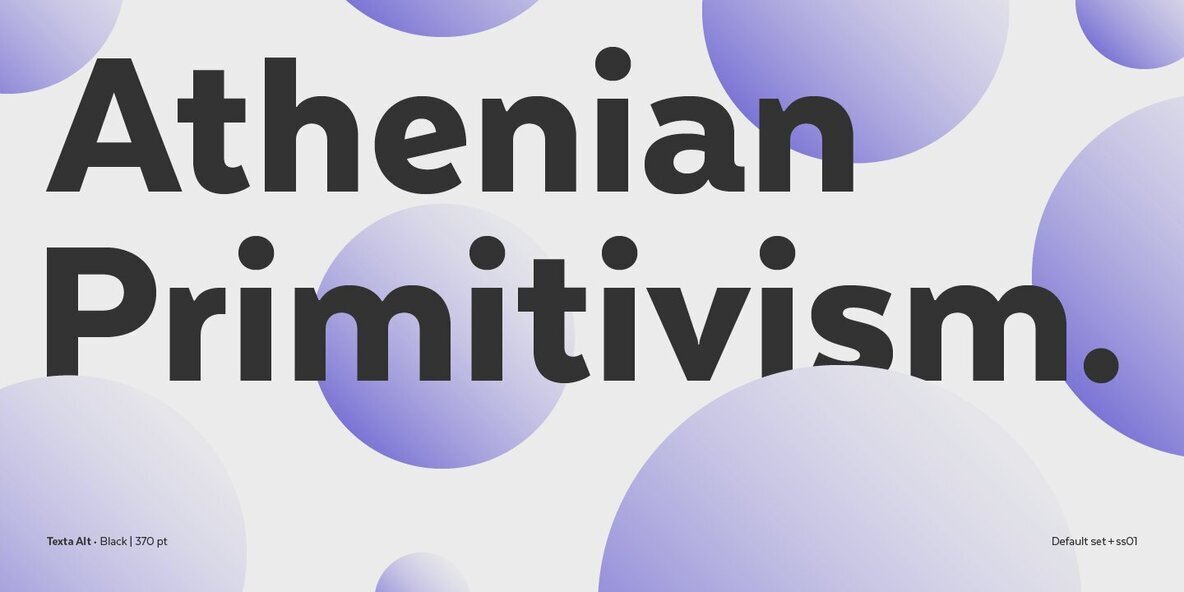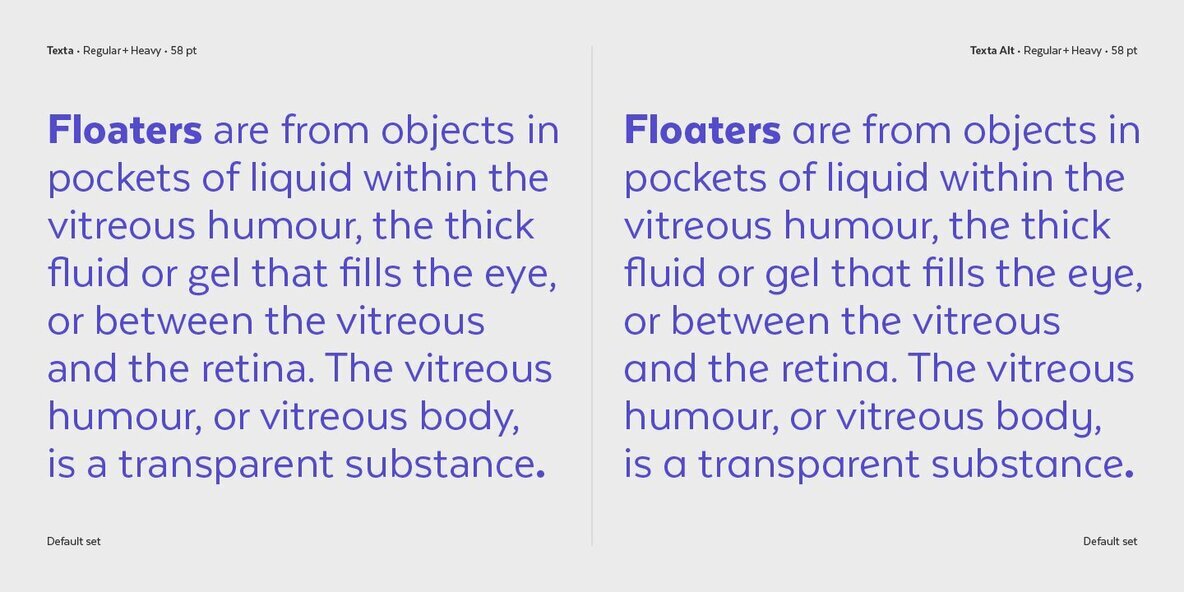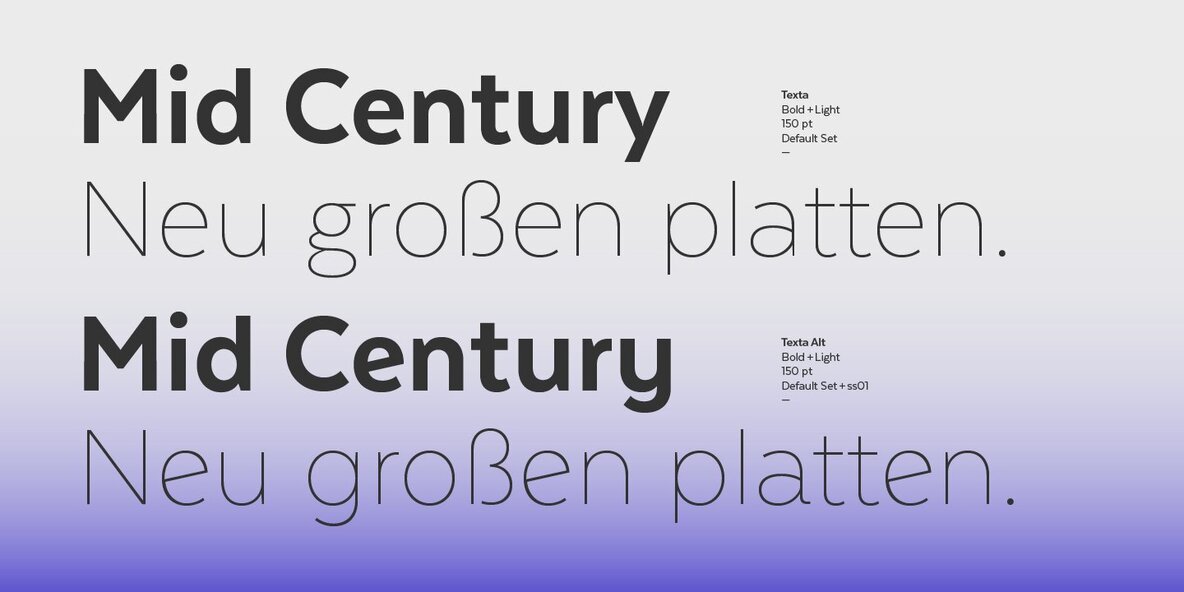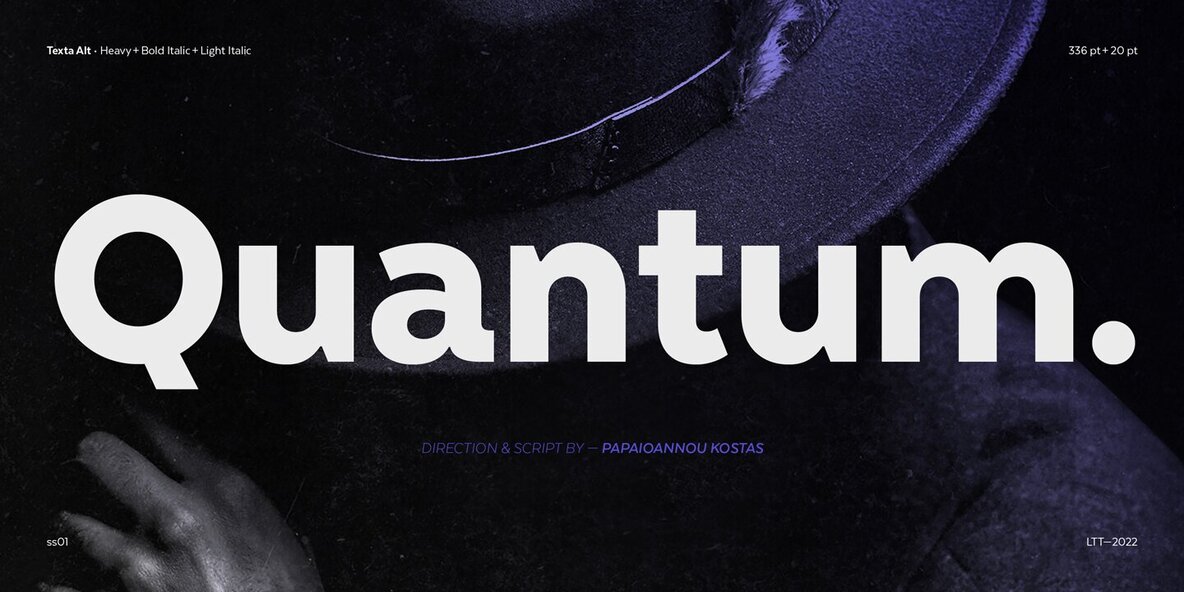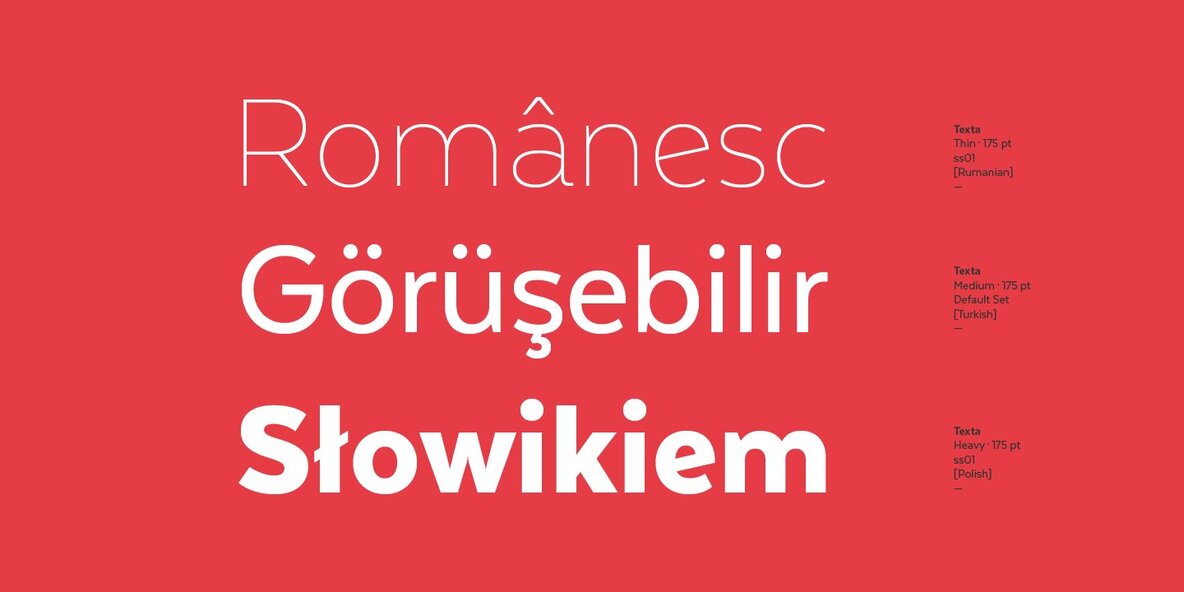
Texta Font
Texta. A Sans for All.
Through studying humanists’ models from Edward Johnston to Adrian Frutiger and the Gothic Alphabet made by sign painters comes Texta, a contemporary, rational, transparent and useful sans to compose all kind of texts. We incorporated an Alt version that replaces lower cases like a-g-y with geometric constructions to get more versatility in neutral compositions.
Texta update:
New set of diacritics for uppercase letters.
New design of symbols like Section, Partialdiff, Dagger, Approxequal, among others.
Expansion of monetary symbols, (Bitcoin, Peso, Franc, etc.)
Basic ligatures like fi, fl.
Stylistic set ss01 with alternate “a” and “e”.
Set of 496 glyphs, more than 200 new glyphs.
Supports over 200 languages.